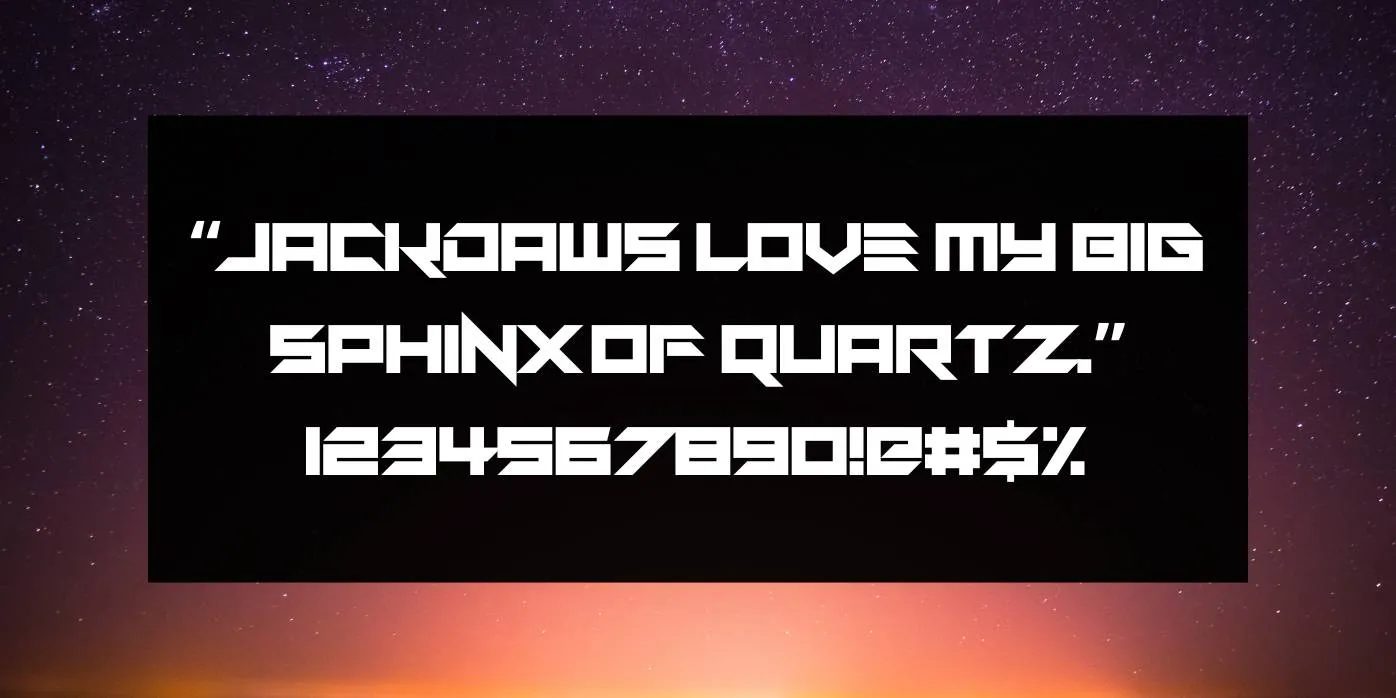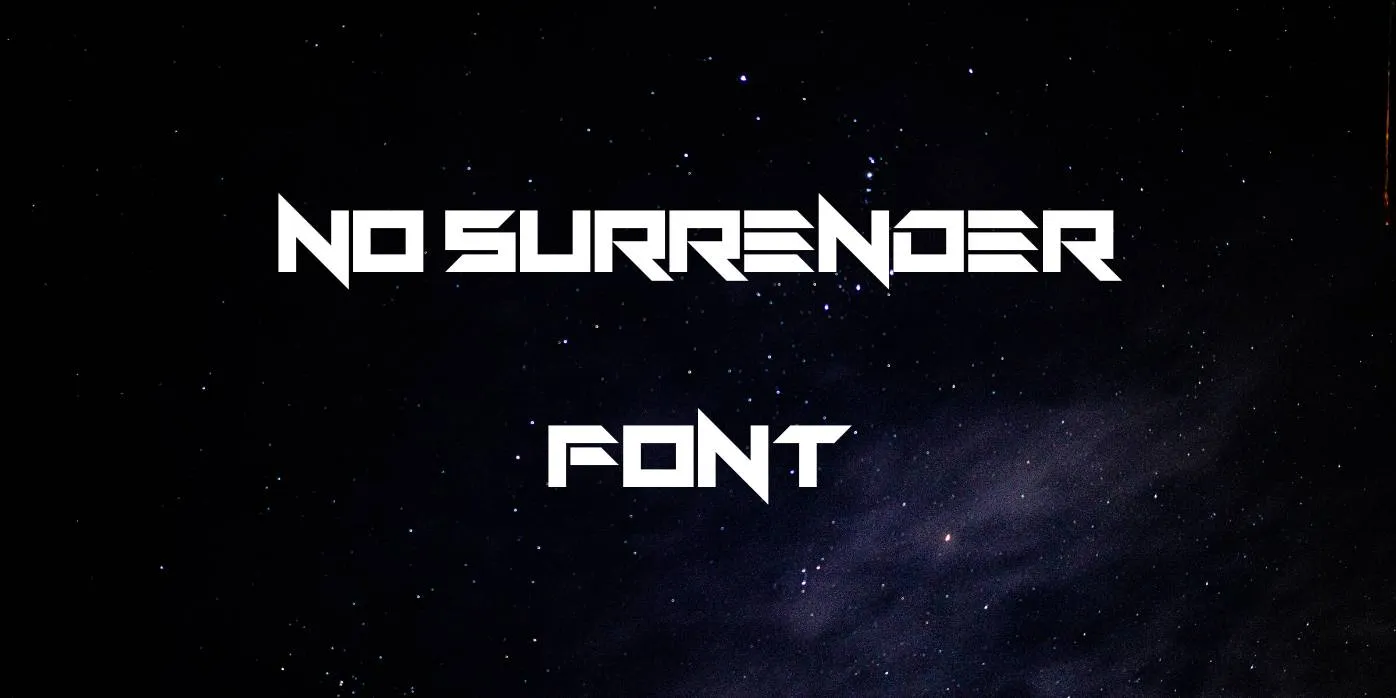
No Surrender Font
Introducing you to a techno font. This techno font is designed by Hawtpixel. No Surrender Font has an attention-grabbing typeface due to it has flexibility and bold texture. The characters of this texture are amazing due to having properties like bold, readable, and attention-grabbing.